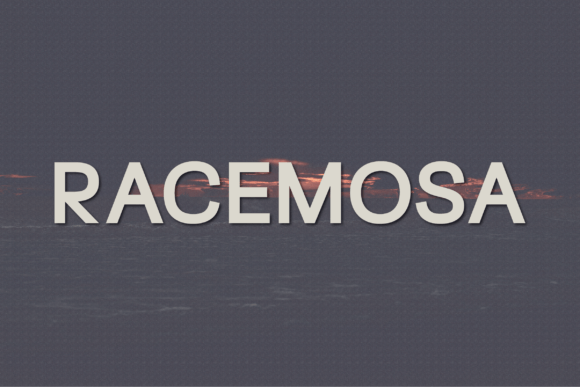
Honey Monday: A Modern Sans Serif for Clean Digital Branding
Recently, I was working on a boutique online store’s homepage redesign. The client wanted something fresh, elegant, and approachable. They had a strong brand identity but needed a font that would elevate the visual experience without overpowering it. After testing several options, I settled on Honey Monday. It wasn’t just about aesthetics—it was about creating a seamless user experience that aligned with their brand values.
A Font That Speaks Volumes
Honey Monday is a modern sans serif typeface with a clean and contemporary look. Its design is both classy and elegant, offering a balance between minimalism and sophistication. The subtle curves and consistent spacing give it a refined feel that works well across different digital platforms. It’s not overly bold or decorative, making it versatile for a wide range of applications—from headers to body text.
What stood out most was how it handled contrast. On a dark background, it felt bold and confident. On light backgrounds, it remained crisp and readable. This versatility made it an ideal choice for a variety of layout scenarios, especially when paired with other fonts to create visual hierarchy.
Testing in Real Layouts
I first tested Honey Monday in the hero section of the homepage. The client’s branding included a warm, inviting tone, and the font’s soft edges complemented that perfectly. It added a touch of elegance without being too formal. I placed it over a high-quality image banner, ensuring it maintained readability even at smaller sizes.
Next, I checked its performance on mobile devices. On smaller screens, the font’s legibility was impressive. The clean lines and balanced spacing made it easy to read, even when the text was condensed. I also tested it against different background colors and found that it performed well on both light and dark themes, which is crucial for responsive design.
Where to Use Honey Monday
Honey Monday is a great fit for multiple areas of a website. For instance, it works beautifully as a header font on landing pages, where it can draw attention without overwhelming the user. It’s also suitable for call-to-action buttons, where clarity and impact are key.
On a product landing page, I used it for section headings and short promotional phrases. The font’s modern appeal helped convey professionalism while keeping the tone approachable. For a blog header, it added a touch of sophistication that matched the brand’s editorial style.
In a creative portfolio site, Honey Monday helped maintain a cohesive look across all sections. It worked well with decorative accents, such as logos or social media icons, without clashing. Its neutral yet stylish nature made it easy to pair with other fonts for body copy or supporting text.
Font Pairing and Readability
When pairing Honey Monday, I found that it works best with simpler sans serifs or clean serif fonts for body text. This creates a nice contrast that enhances readability without sacrificing visual harmony. For example, using a classic serif font like Georgia for body content complements Honey Monday’s modern edge.
For digital ads and campaign landing pages, Honey Monday adds a polished feel that aligns with professional branding. It’s particularly effective in environments where trust and reliability are important, such as course sales pages or SaaS landing pages.
Readability and Performance
One of the biggest considerations when choosing a font is its performance on different screen sizes and resolutions. Honey Monday excels in this area. Its clear letterforms and consistent weight make it ideal for small buttons, navigation menus, and fast-loading visual content.
I also made sure to check the font’s webfont availability and file formats. Ensuring that the font loads quickly and efficiently is essential for maintaining a smooth user experience. Additionally, verifying multilingual support and commercial licensing was a necessary step before implementing it across the entire website.
Building a Polished Online Presence
Using Honey Monday helped create a more polished and professional online brand experience. It reinforced the client’s message of quality and approachability, which resonated well with their target audience. The font’s clean aesthetic contributed to a sense of trust and reliability, which is crucial for e-commerce and service-based websites.
Overall, Honey Monday proved to be a reliable and versatile choice. Whether you’re designing a boutique online store, a coaching website, or a creative portfolio, this font offers a modern, elegant solution that enhances both usability and brand identity.